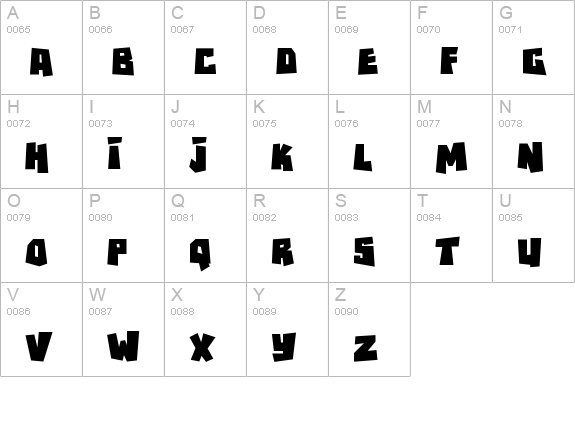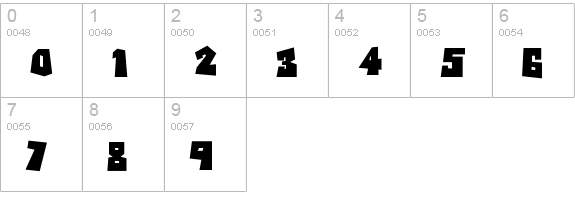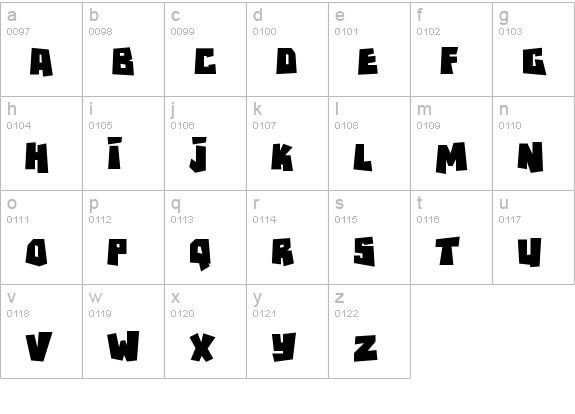
Rockbiter font is a unique and bold typeface that exudes strength and solidity. Its rugged edges and powerful presence make it perfect for headlines, logos, and branding projects that require a strong and impactful look. The Rockbiter font is freely available to download at FontsMarket.com, allowing designers and creatives to easily access this impressive typeface for their design needs. With its distinctive character and commanding presence, Rockbiter font is sure to make a statement in any design project.